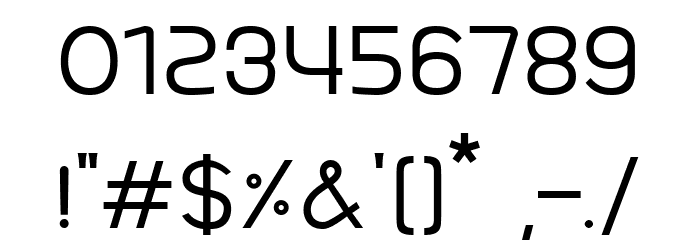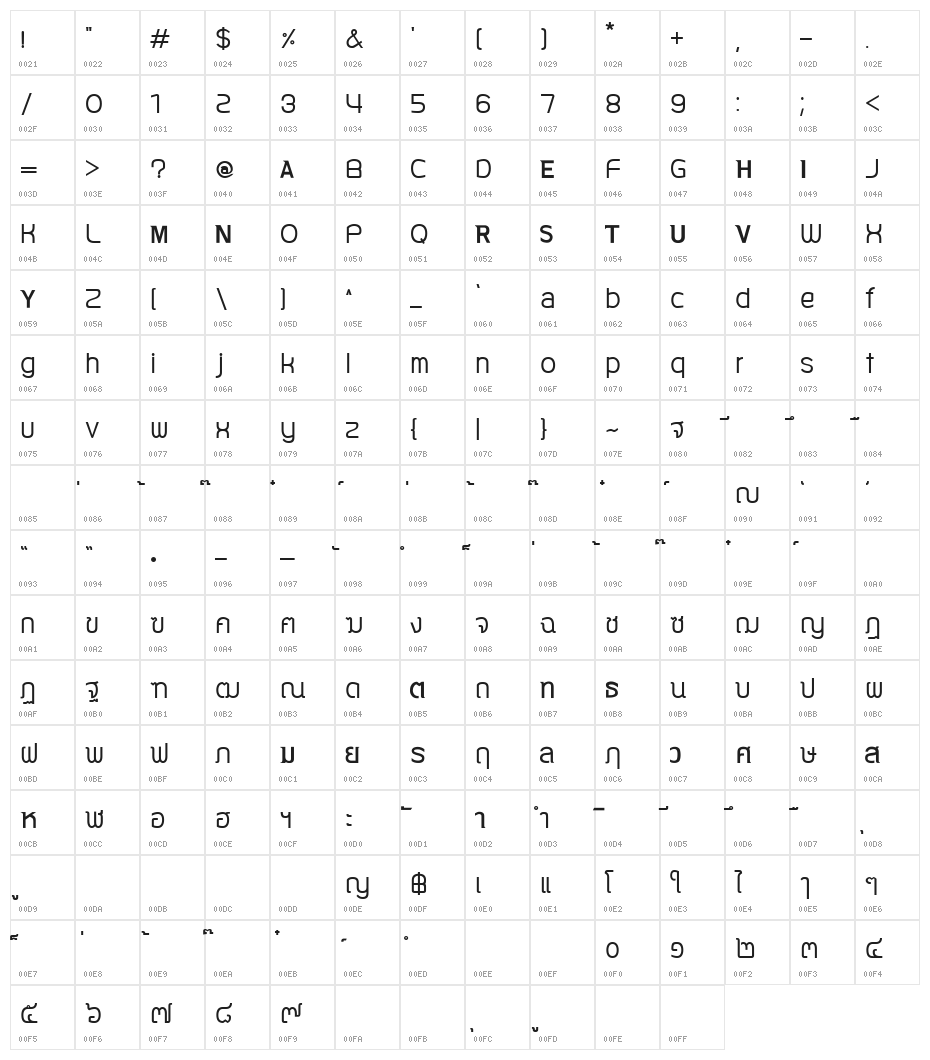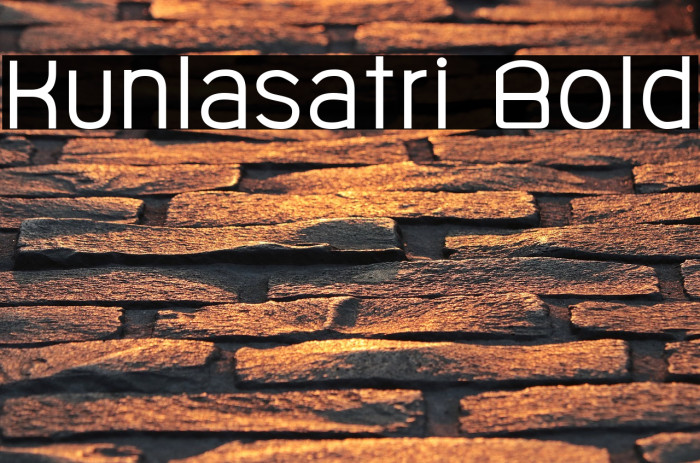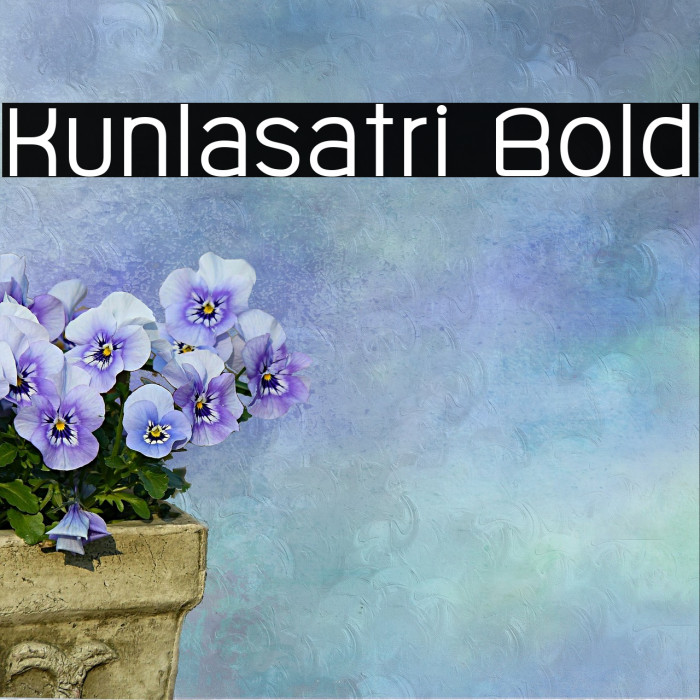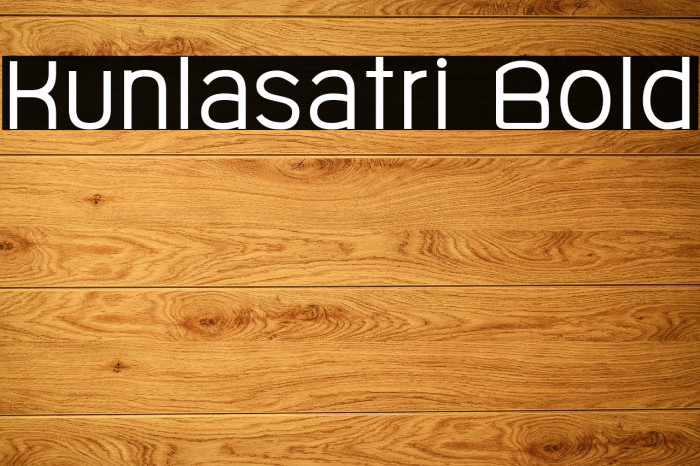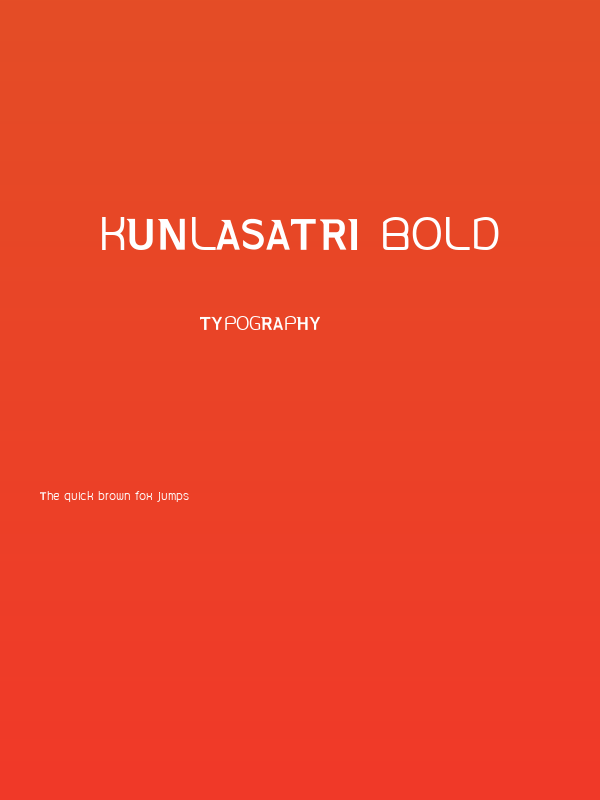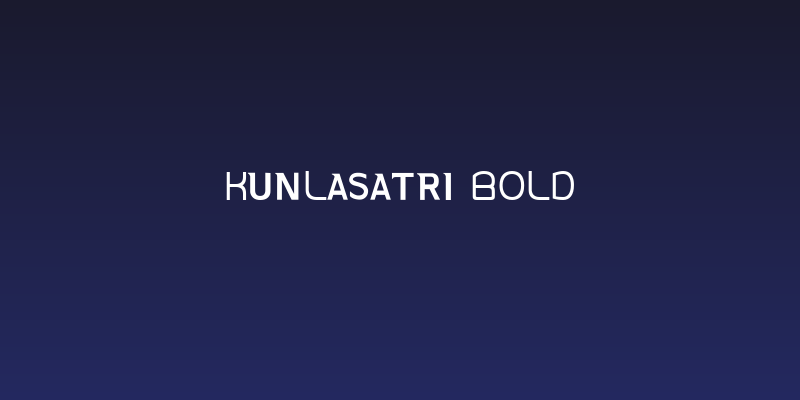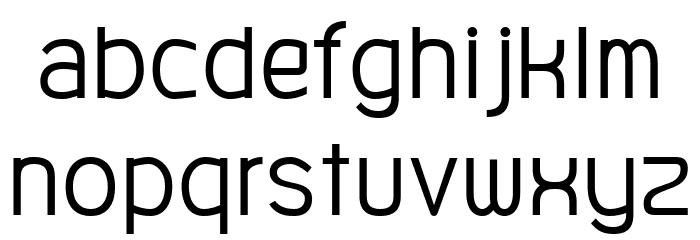
Kunlasatri Bold Font
Kunlasatri Bold Description
This font features a modern, geometric sans-serif design with a bold weight. The characters are clean and straightforward, with a consistent stroke width that gives a uniform appearance. The uppercase letters are slightly wider, providing a strong presence, while the lowercase letters maintain a balanced and approachable look. The numerals are distinct and easy to read, making them suitable for various applications. The special characters are well-integrated, maintaining the overall aesthetic of the font. This typeface is versatile, suitable for both digital and print media, and can be used effectively in various design contexts.
Use CaseHeadlines, Logos, Digital interfaces
Proposed ProjectsIdeal for branding, headlines, posters, and digital interfaces.